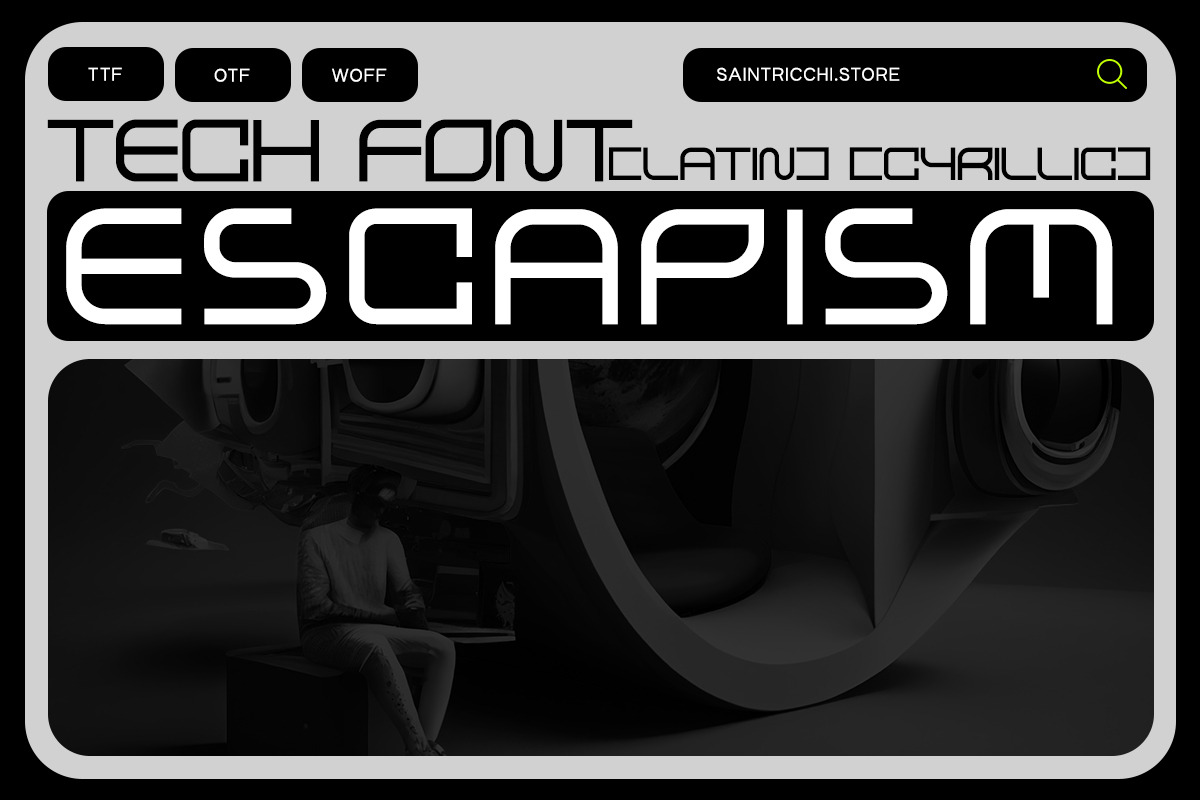
Escapism -Tech Font (Latin&Cyrillic)
A versatile typeface with a comprehensive character set that includes both Latin and Cyrillic characters. This new font is perfect for any design project, whether it be for branding, advertising, or digital media. The clean and modern design of this font will give your projects a sleek and professional look, while its versatility allows for endless possibilities in terms of style and tone.
Say goodbye to limiting font choices, and say hello to endless creative possibilities with this new tech font!